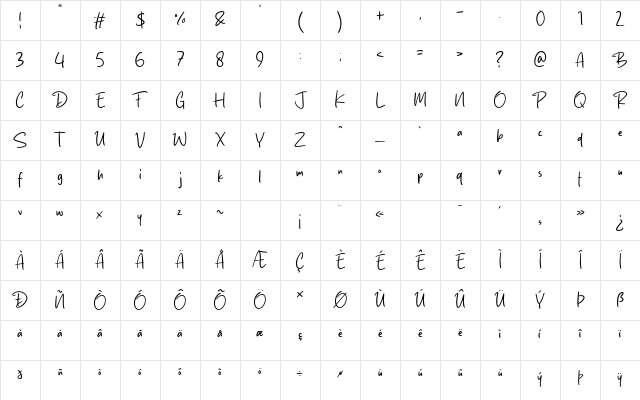
Butter Gold Regular
Design Context for Butter Gold
Butter Gold is a composed and adaptable typeface that performs quietly and consistently across a wide range of design contexts.